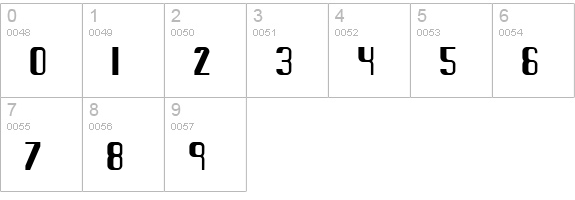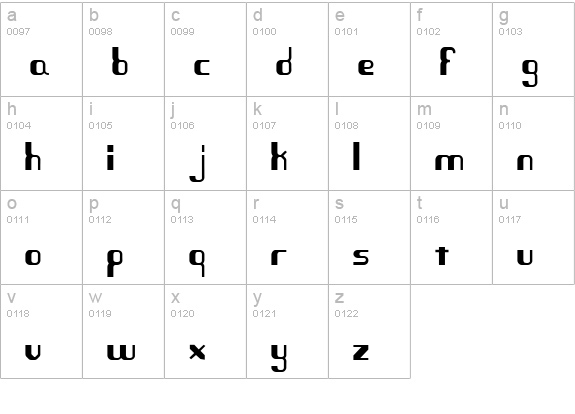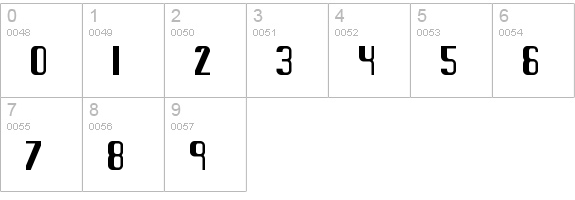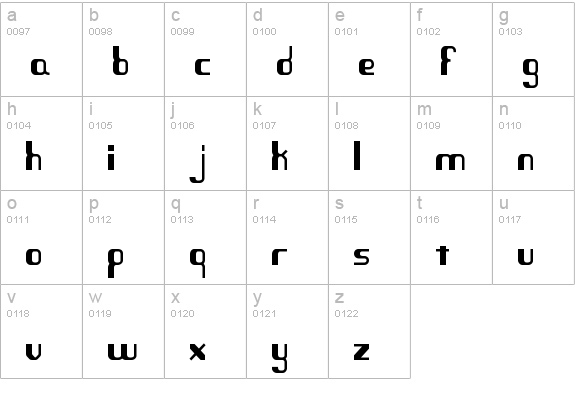
Quandary BRK Font Details
Quandary BRK font is a stunning typeface that effortlessly combines elegance with a touch of modernity. Its sleek and sophisticated design makes it a perfect choice for various creative projects, including advertisements, logos, branding, and more. This font exudes a sense of confidence and professionalism, making it ideal for both professional and personal use. Its clean lines and balanced proportions give a polished look to any design, while its versatility allows it to adapt to a wide range of styles and themes. One of the best things about Quandary BRK font is that it is free! Yes, you read that right. This incredible font is freely available to download at FontsMarket.com. It offers you the opportunity to enhance your designs without any cost, making it an invaluable resource for designers and enthusiasts alike. With Quandary BRK font, you can add a touch of class and elegance to your projects without breaking the bank. So why wait? Head over to FontsMarket.com and grab this amazing font for free. Elevate your design game and captivate your audience with the timeless beauty of Quandary BRK font.